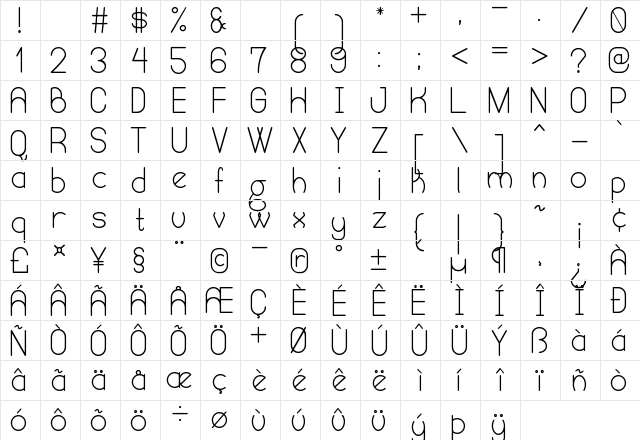
Humongous of Eternity St Regular
Design Context for Humongous of Eternity St Typeface
Humongous of Eternity St is a composed and adaptable typeface that performs quietly and consistently across a wide range of design contexts.
Pro Tip: Use Humongous of Eternity St in both headline and body roles to test its range before committing to a single application.